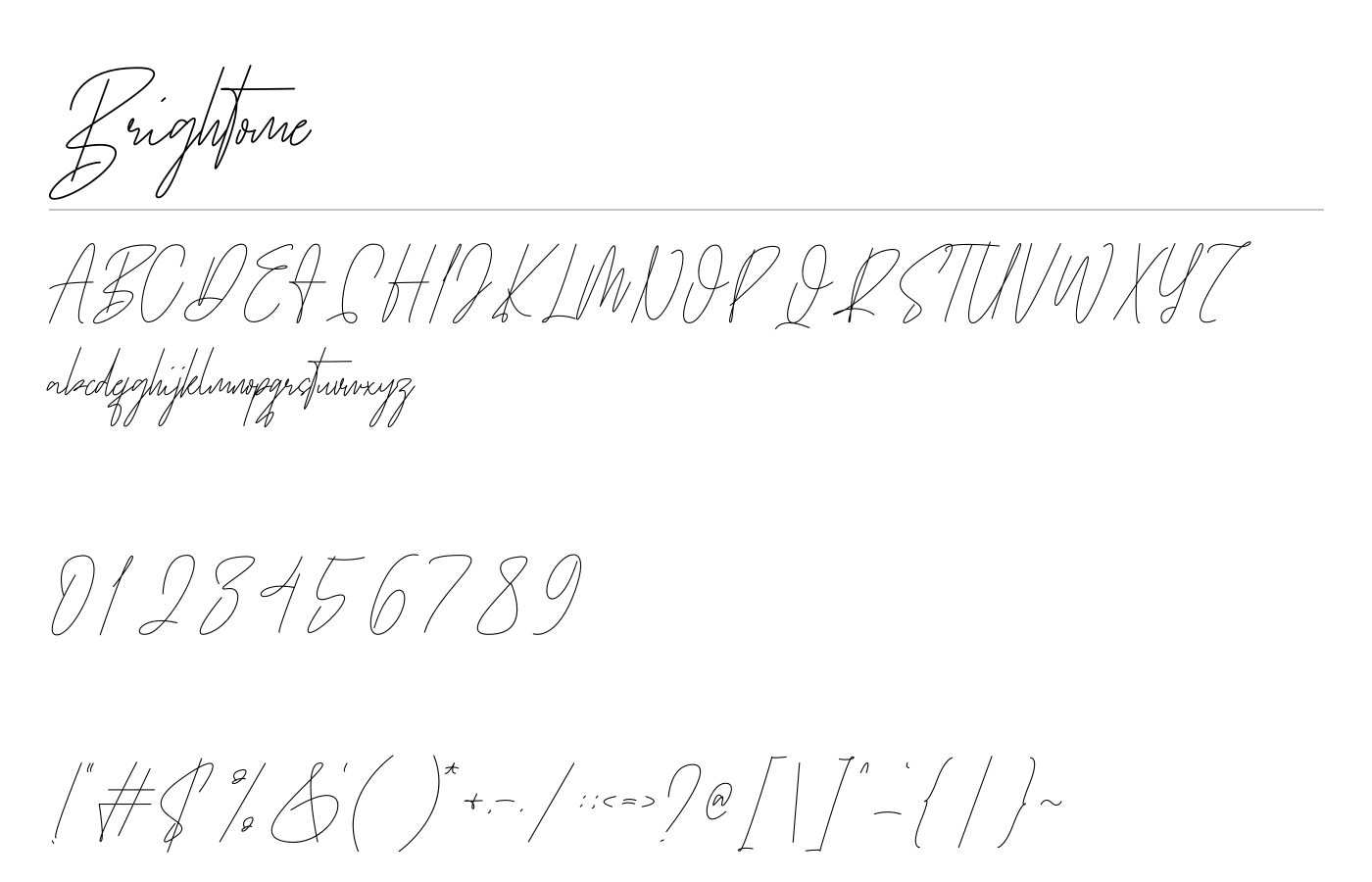
Brightome is an elegant, delicate script font characterized by its thin, flowing strokes and airy, handwritten style. Its tall, slender letterforms and casual, sophisticated feel make it perfect for stylish branding, wedding invitations, and luxury packaging where a refined yet personal touch is desired. This font shines in contexts that benefit from a graceful, modern script with a light and artistic flair.
Brightome Font
About Brightome Font